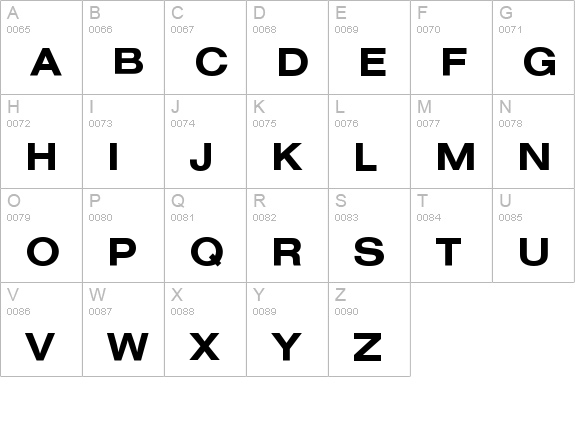
NimbusSanTExt Bold is a strong, high-contrast variant in the NimbusSanTExt typeface family \xE2\x80\x94 well suited to headlines, attention-grabbing titles, and strong calls-to-action.
NimbusSanTExt Bold is a striking and versatile font that exudes confidence and modernity. With its bold weight and clean lines, this typeface is perfect for making a strong statement in any design project. Whether used for headlines, logos, or branding materials, NimbusSanTExt Bold commands attention and leaves a lasting impression. The best part? NimbusSanTExt Bold is available for free download at FontsMarket.com. This means you can access this high-quality font without any cost, making it a valuable addition to your font library. Don't miss out on the opportunity to elevate your designs with NimbusSanTExt Bold – download it today and start creating impactful visuals effortlessly.